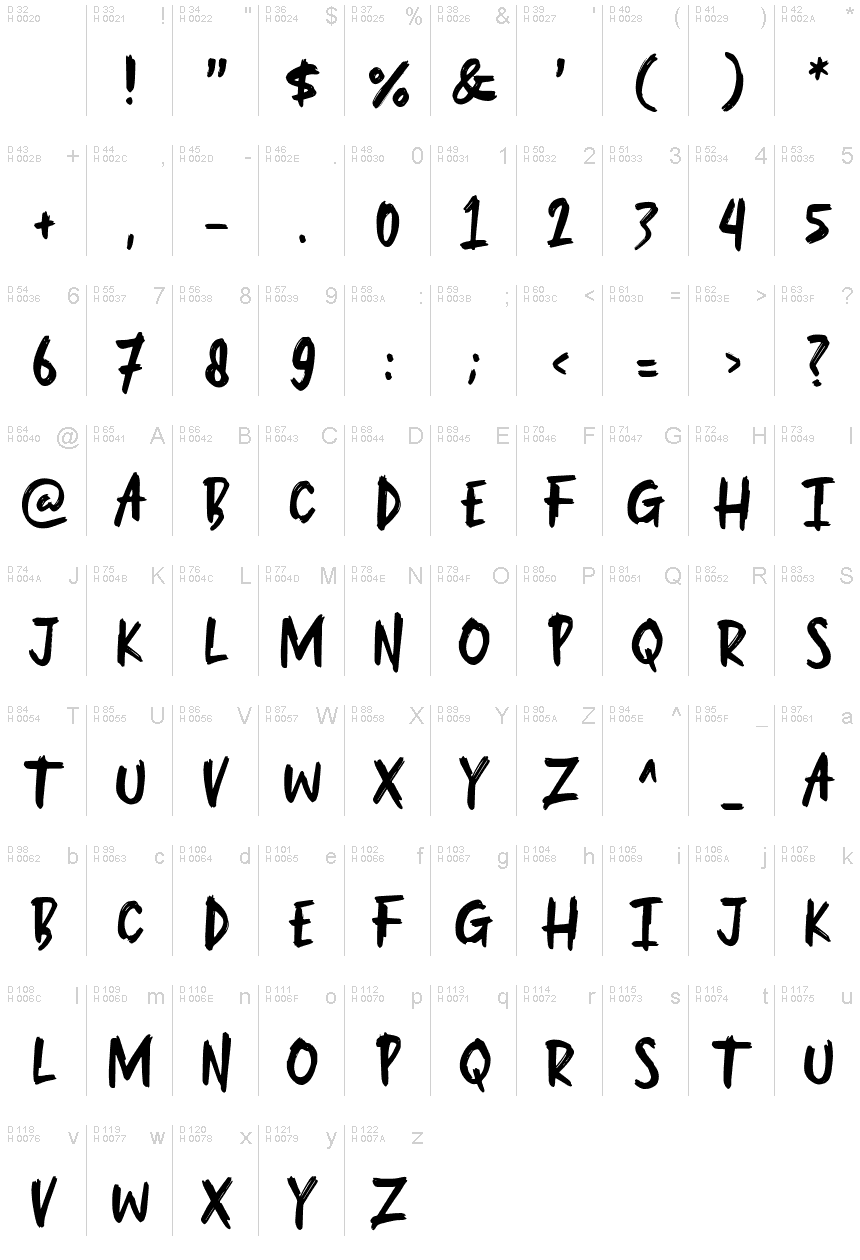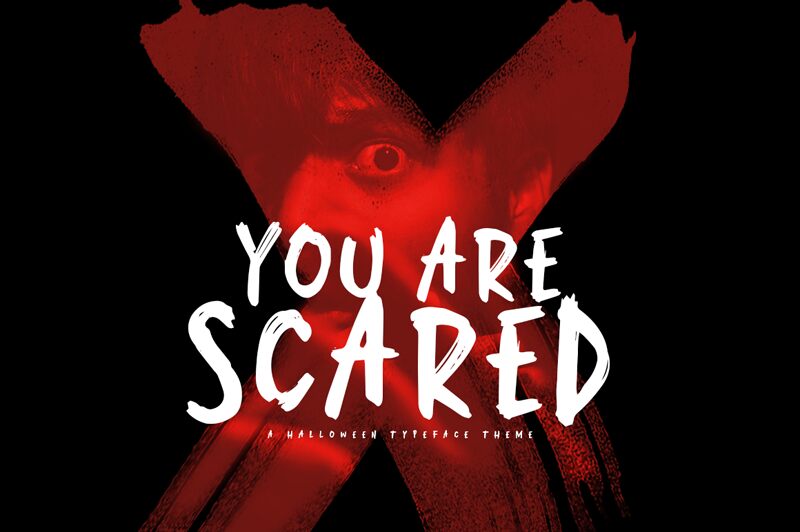
You Are Scared
Khurasan's You Are Scared font is an eerie and captivating script typeface that adds a spine-chilling touch to any project.
With its scary brush style, this semi-bold font unleashes a haunting atmosphere, making it perfect for horror movie posters, Halloween-themed invitations, and chilling book covers. The semi-condensed width of You Are Scared enhances its legibility while maintaining a compact appearance, ideal for dark-themed websites, spooky event flyers, and even gothic-inspired logos.
Unleash your creativity and strike fear into the hearts of your audience with You Are Scared.